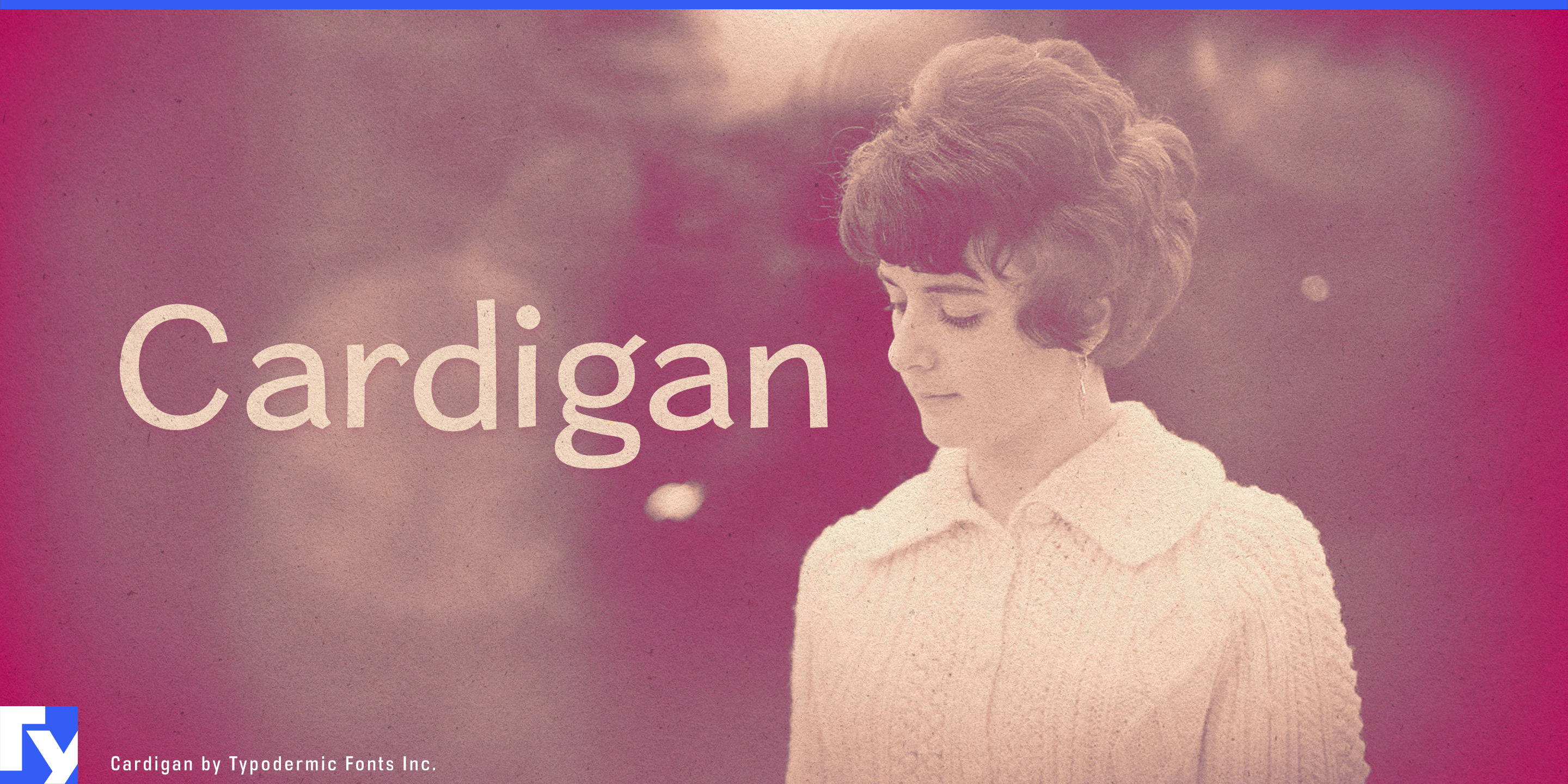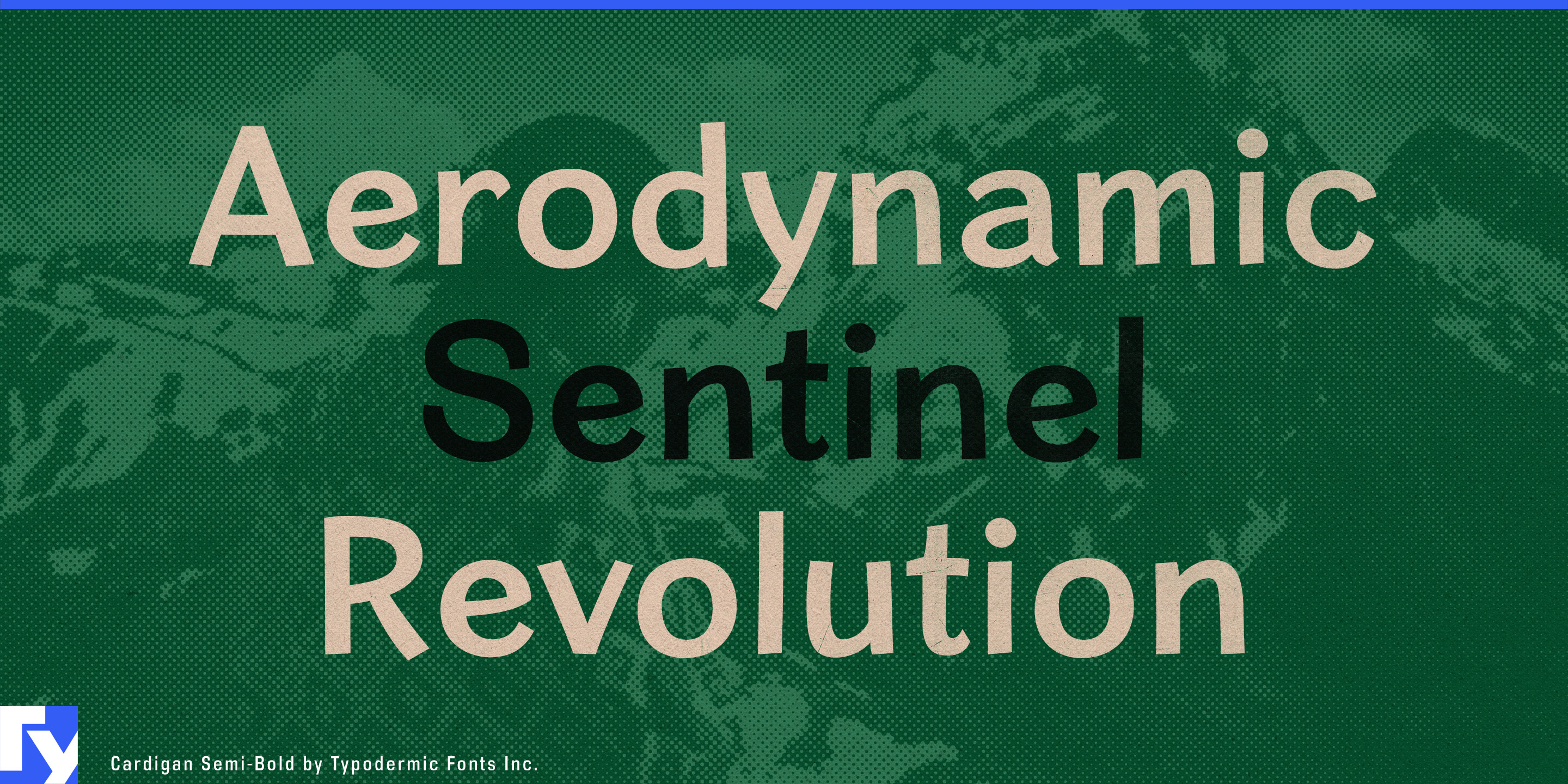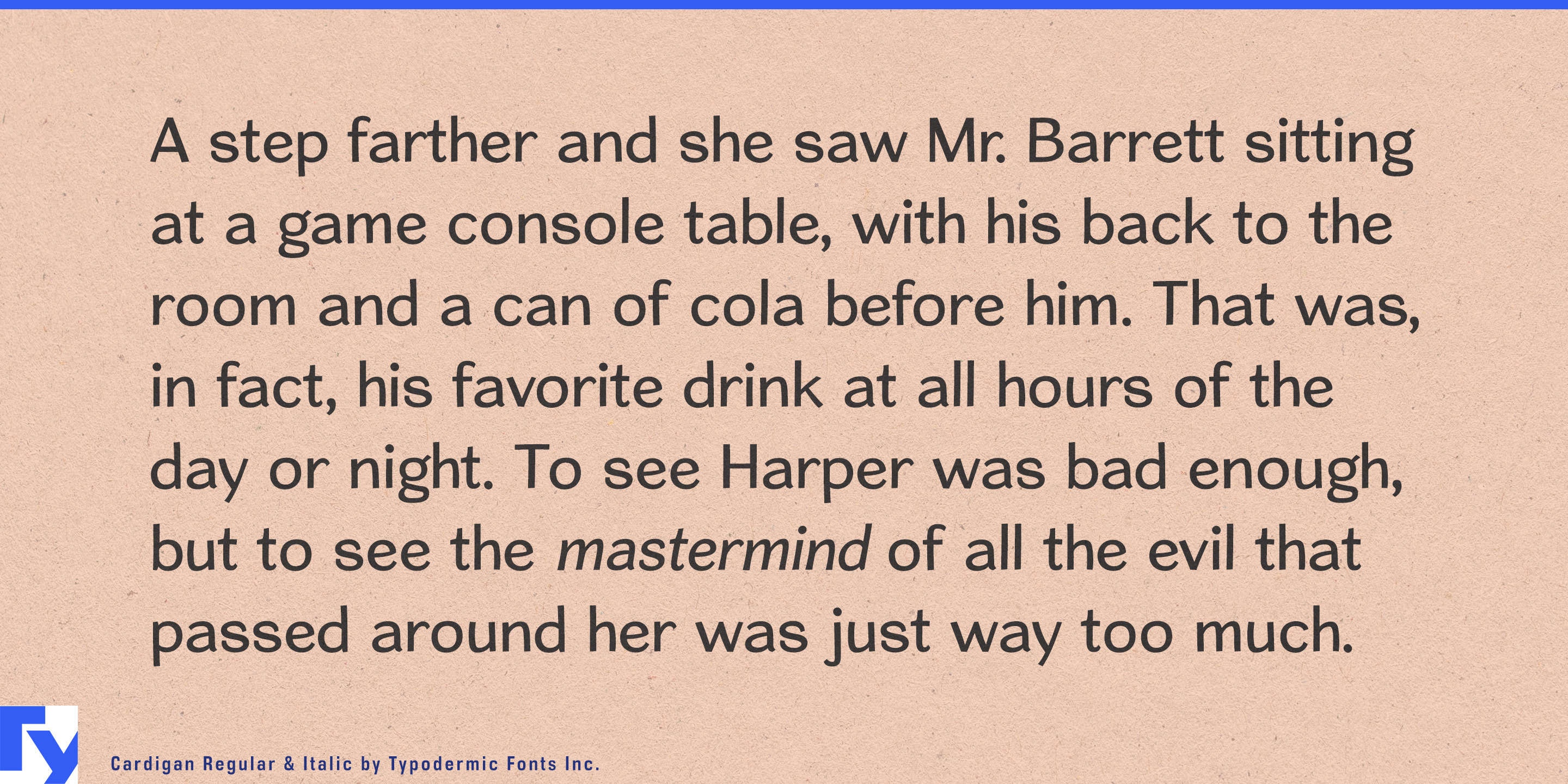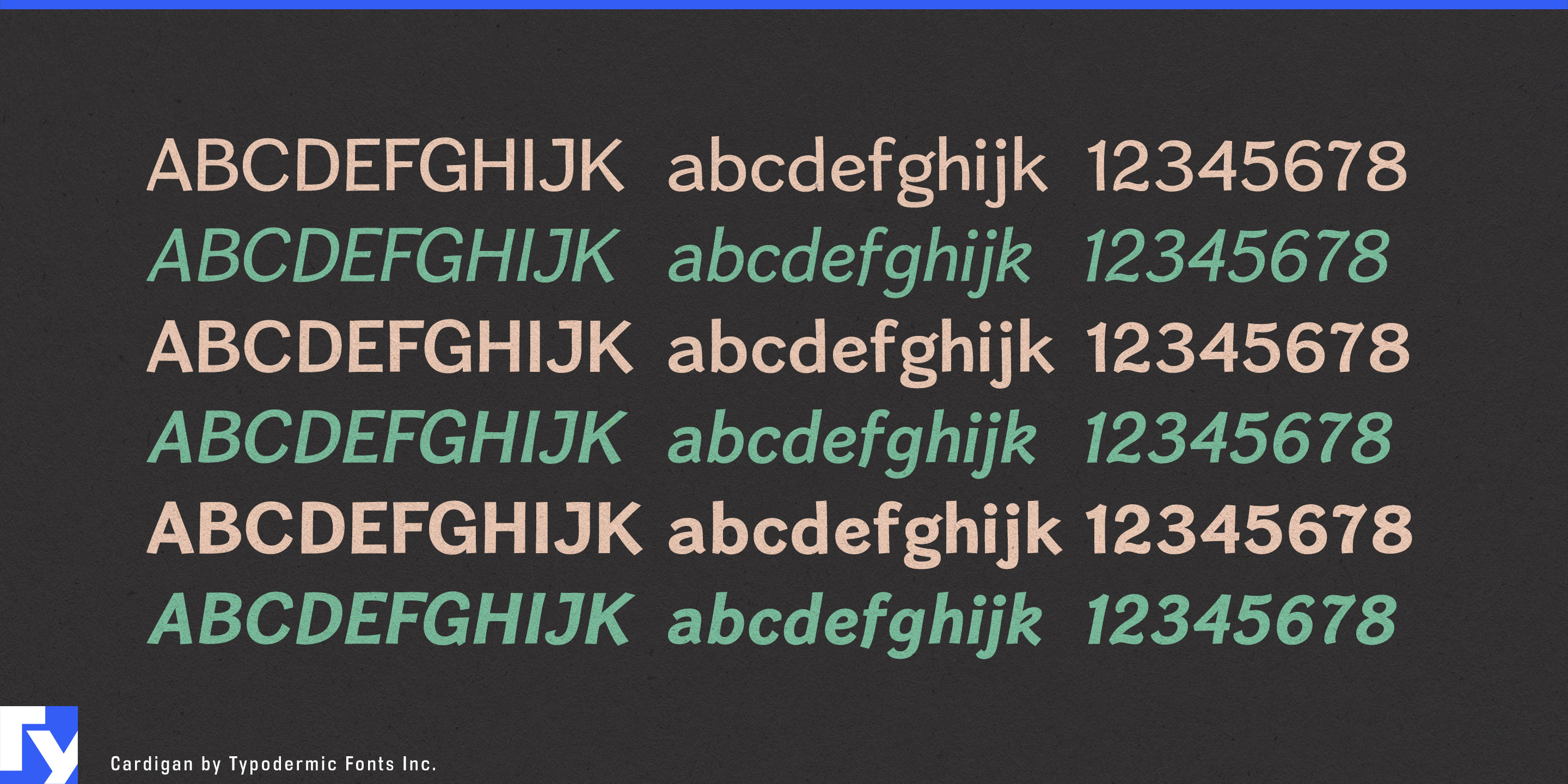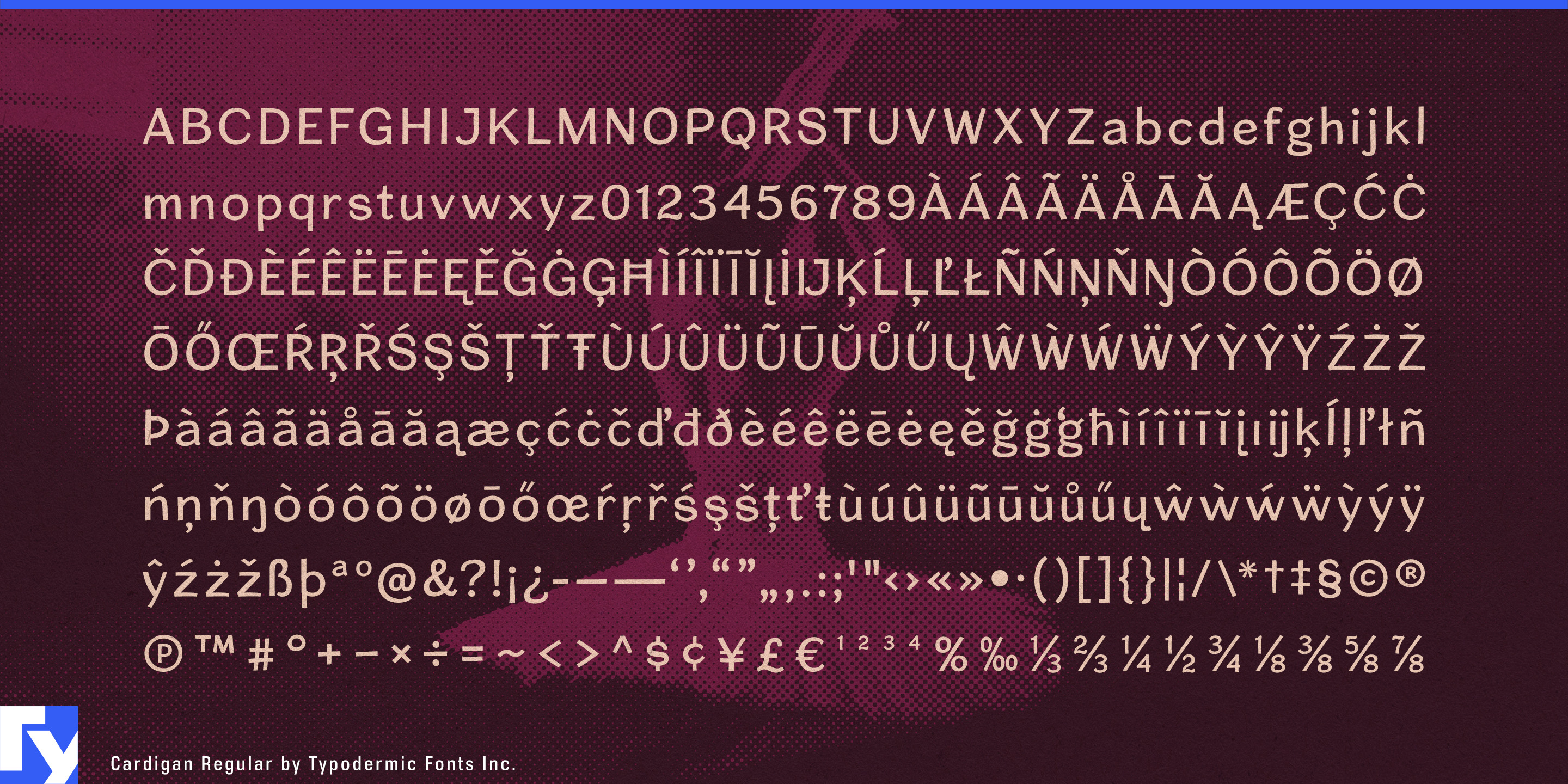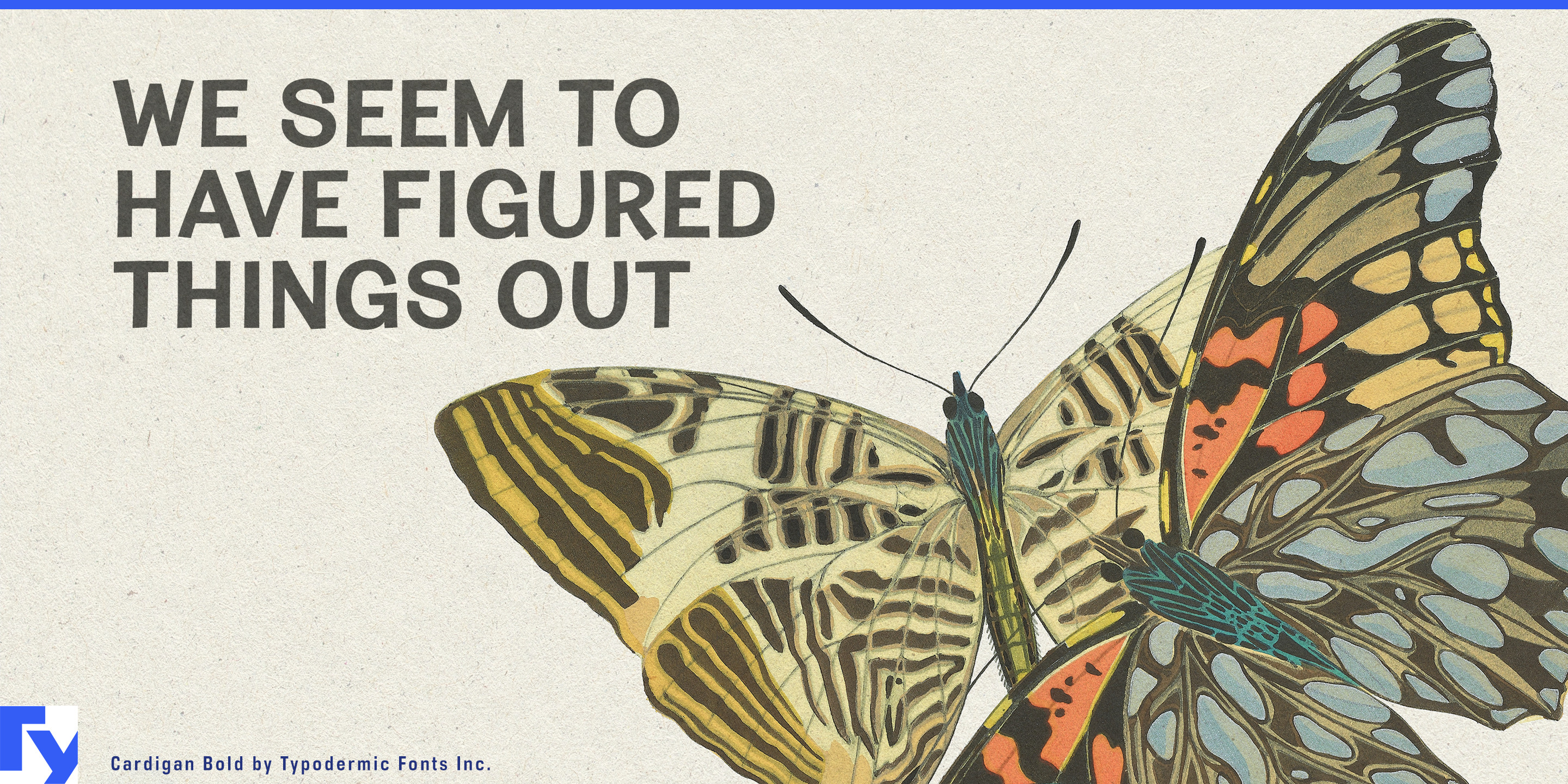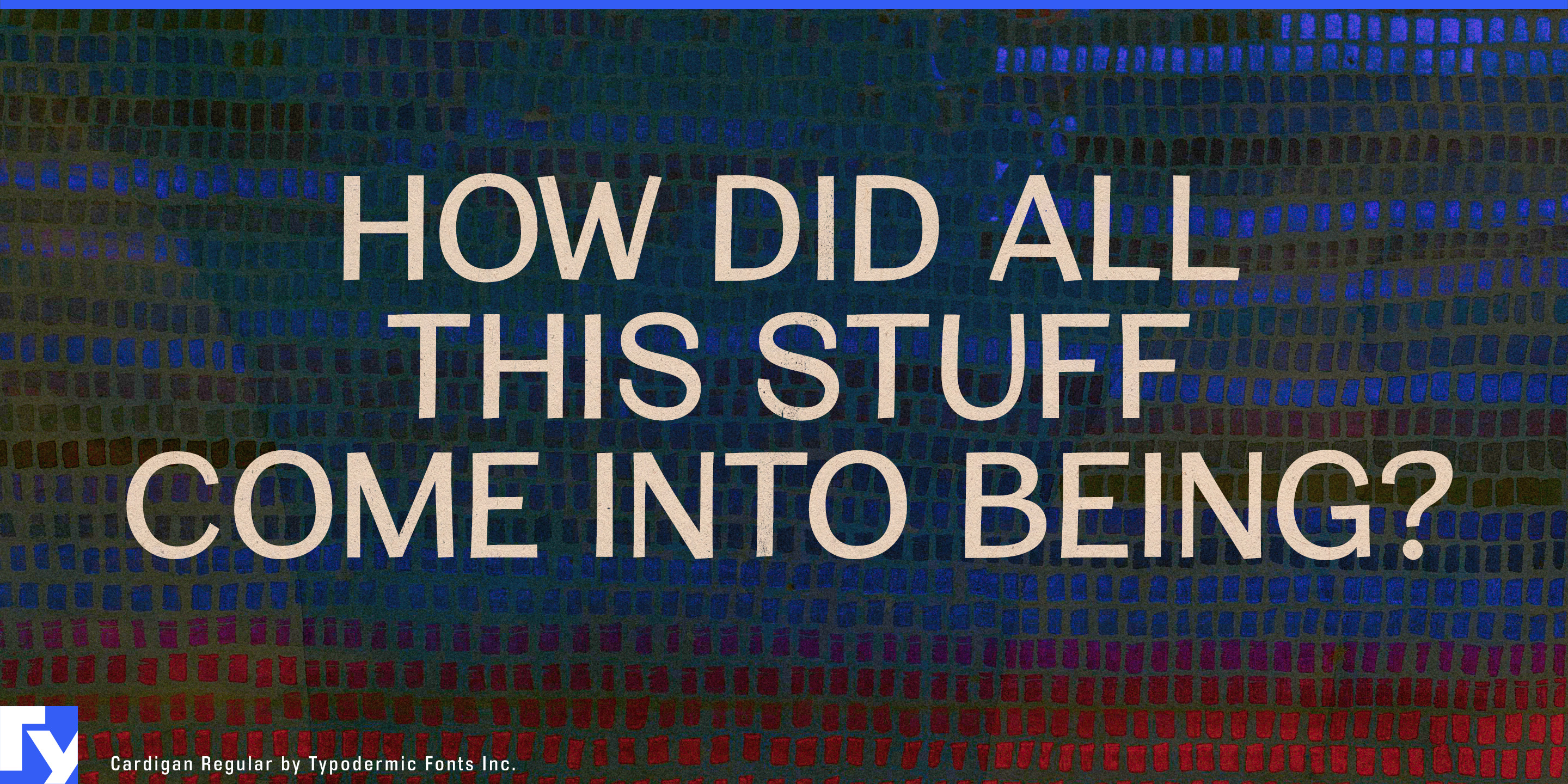
Cardigan
Cardigan is a sans serif typeface with a knack for making readers feel welcome. Its shapes are clear and open, with just enough human character to set it apart from the usual “safe” text faces. There’s a gentle rhythm in the strokes that makes it easy to read for long stretches, but it’s never bland—look closely and you’ll find quiet quirks in the numerals and italics that add a touch of personality.
The family covers three weights—light, regular, and bold—each with italics, giving you the tools to create a complete typographic voice. Light is refined and airy, perfect for elegant headings or high-end packaging. Regular carries the weight of body text with unforced clarity, while Bold delivers statements that feel confident without shouting. The italics lean in with subtle energy, ideal for emphasis that stays in character.
Cardigan’s versatility extends beyond style into reach; it supports a wide range of Latin-based languages, so its approachable tone travels well across cultures. It’s equally at home in editorial spreads, boutique branding, lifestyle content, and any setting where the message needs to feel both genuine and polished. Whether you’re aiming for quiet sophistication or friendly professionalism, Cardigan makes the connection feel natural.